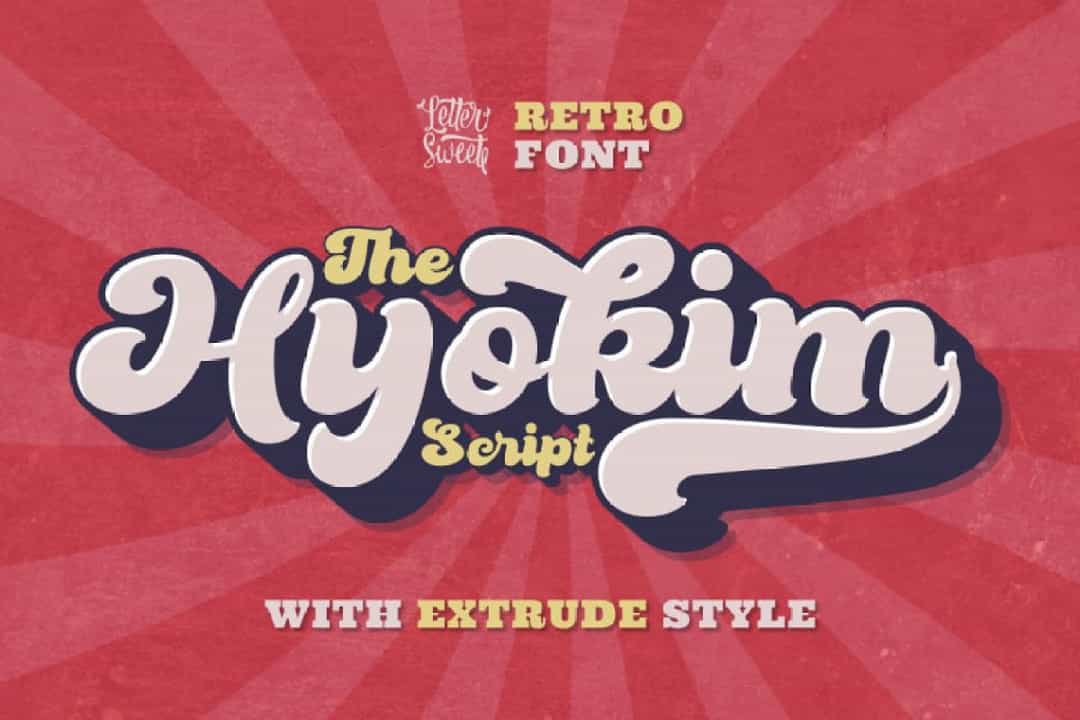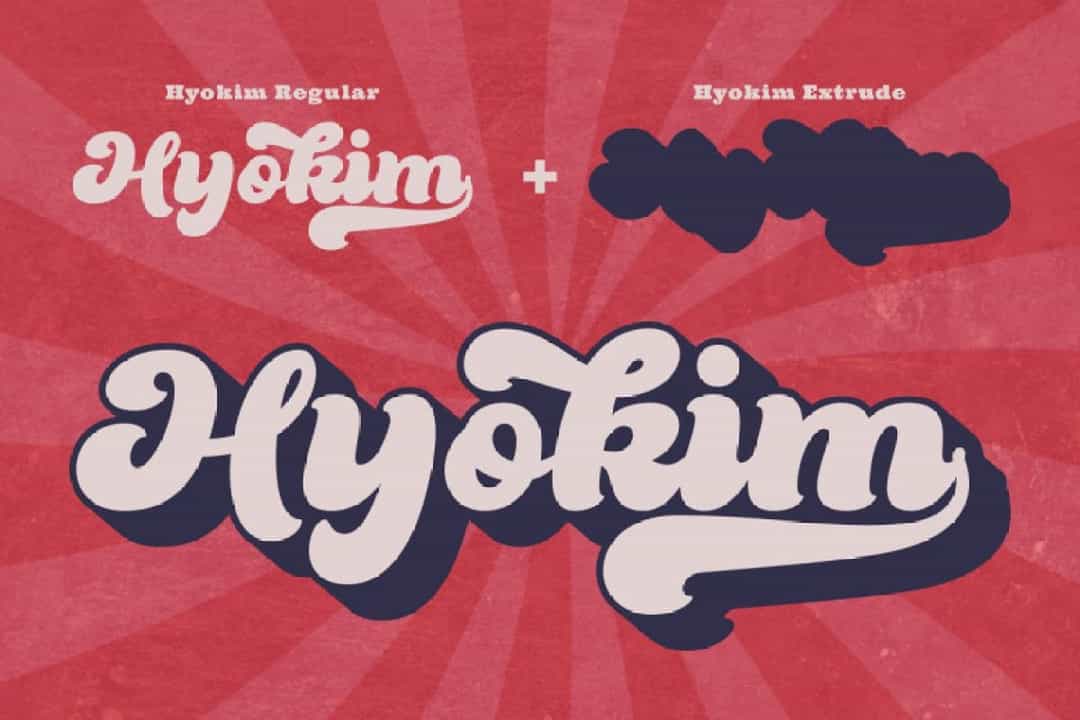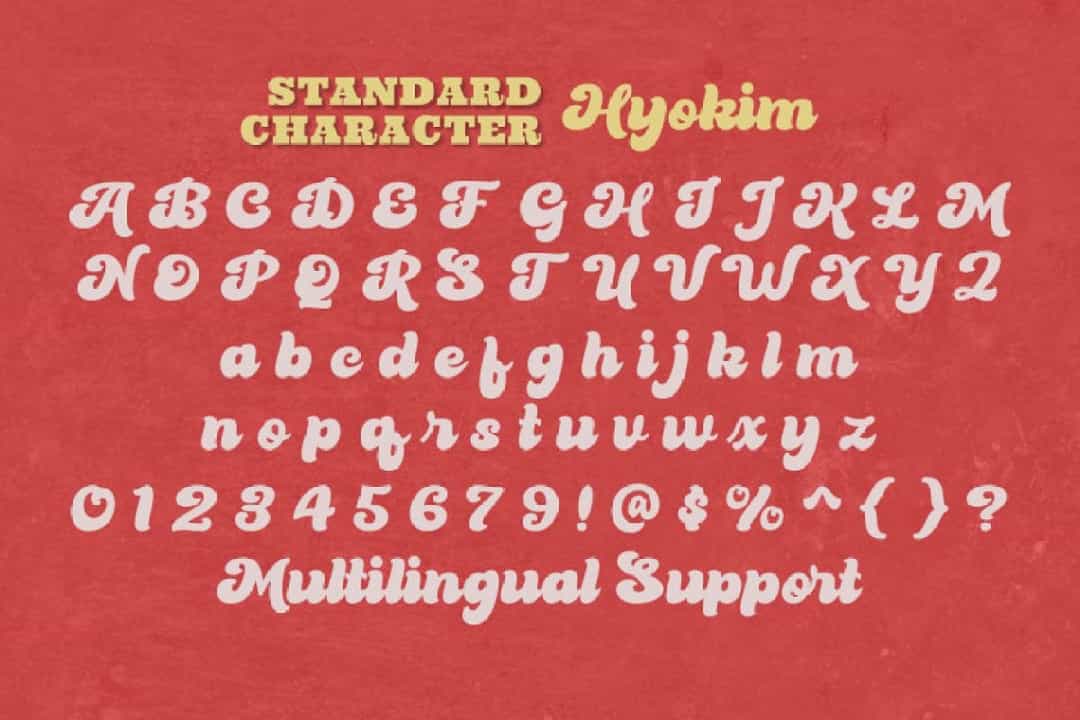
Hyokim is an enjoyable retro-style display font ready to elevate your designs to new heights. Use it in vintage-inspired stickers, posters and apparel or social media posts and you will no doubt impress your followers! Plus it has been PUA encoded so you have easy access to all its characters and washes!